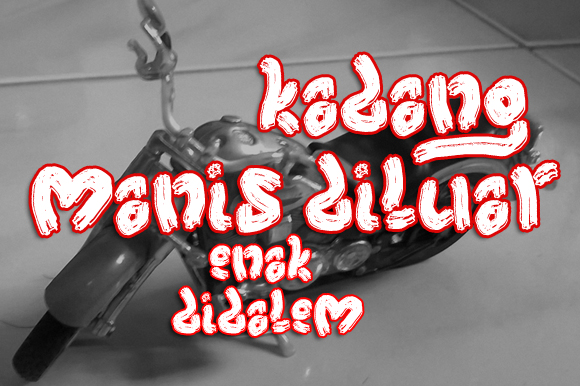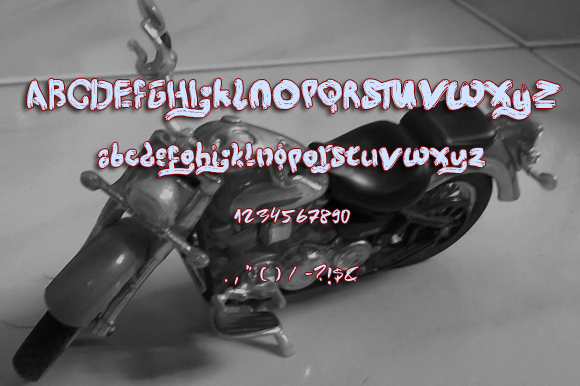
The Art of Hand-Drawn Typography
As designers, we’ve all been there – staring at a blank canvas, trying to bring an idea to life. The blank page can be intimidating, but it’s also an opportunity to create something truly unique. For me, it’s moments like these that remind me of the beauty of hand-drawn typography. There’s something special about the imperfections and quirks that come with creating type by hand.
Enter the Doelkenyoet Font, a hand-painted brush font that captures the essence of hand-drawn typography. This beautiful font is designed for those who want to add a touch of elegance and whimsy to their designs. Whether you’re a graphic designer, illustrator, or simply someone who loves typography, the Doelkenyoet Font is a valuable addition to any design toolkit. With its unique, hand-painted style, it’s perfect for creating eye-catching headlines, branding materials, and more.
- Font Family: Doelkenyoet
- Unique Characteristics: Unique, cursive, and handwritten style; suitable for creative, artistic, and informal designs
Review: Doelkenyoet Font
- Unique, hand-drawn feel that sets it apart from other fonts.
- Good for creating a playful, whimsical atmosphere in designs.
- Highly legible, even at smaller font sizes.
- ⚠️ Not ideal for formal or corporate designs, as it may come across as too casual.
- ⚠️ Limited availability in certain font weights and styles, which can be restrictive for some projects.
Overall, I think the Doelkenyoet Font is a great choice for projects that require a unique, playful touch. While it has its limitations, it’s a solid addition to any designer’s toolkit. With a little creativity, it can add a lot of personality to your designs.
Tips for Getting the Most Out of the Doelkenyoet Font
Use the Doelkenyoet Font to add a touch of elegance and sophistication to your designs.
Pair it with bold colors and simple shapes to create a striking visual effect.
Experiment with different font sizes and styles to create a unique and eye-catching look.
The Doelkenyoet Font